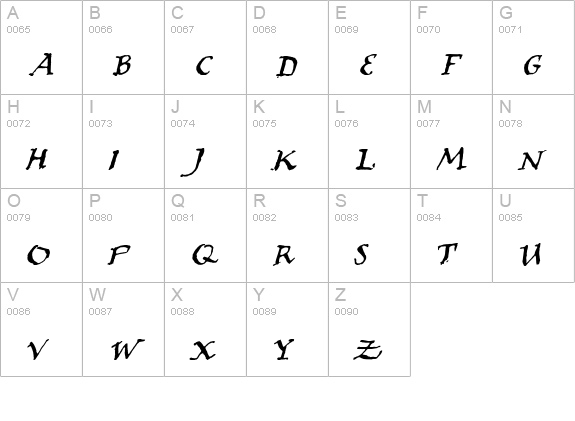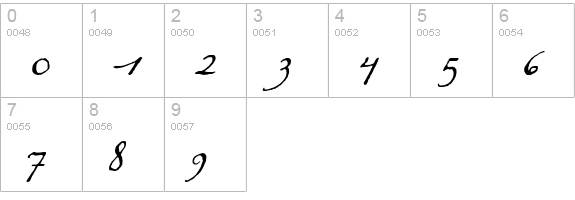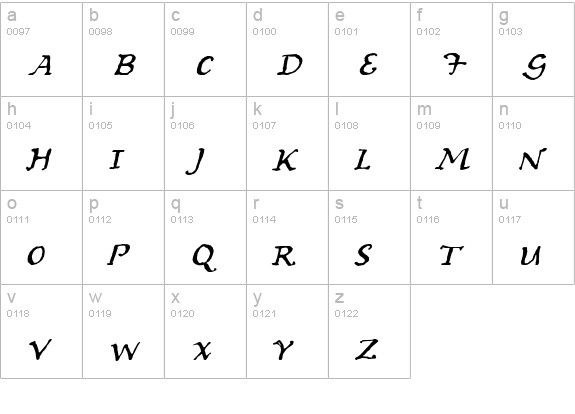
Dear Sarah Small Caps font is a charming and elegant typeface that exudes a sense of sophistication and grace. With its delicate and refined letterforms, this font is perfect for adding a touch of class to your design projects. The small caps style adds a unique flair to the overall look, making it stand out from other fonts. What's even better is that Dear Sarah Small Caps font is available for free download at FontsMarket.com. You can easily access this beautiful font and incorporate it into your designs without any cost. Whether you're working on invitations, branding materials, or any other creative project, Dear Sarah Small Caps font will elevate your work to the next level. Don't miss out on this opportunity to enhance your designs with the timeless beauty of Dear Sarah Small Caps font. Download it for free today and let your creativity shine!